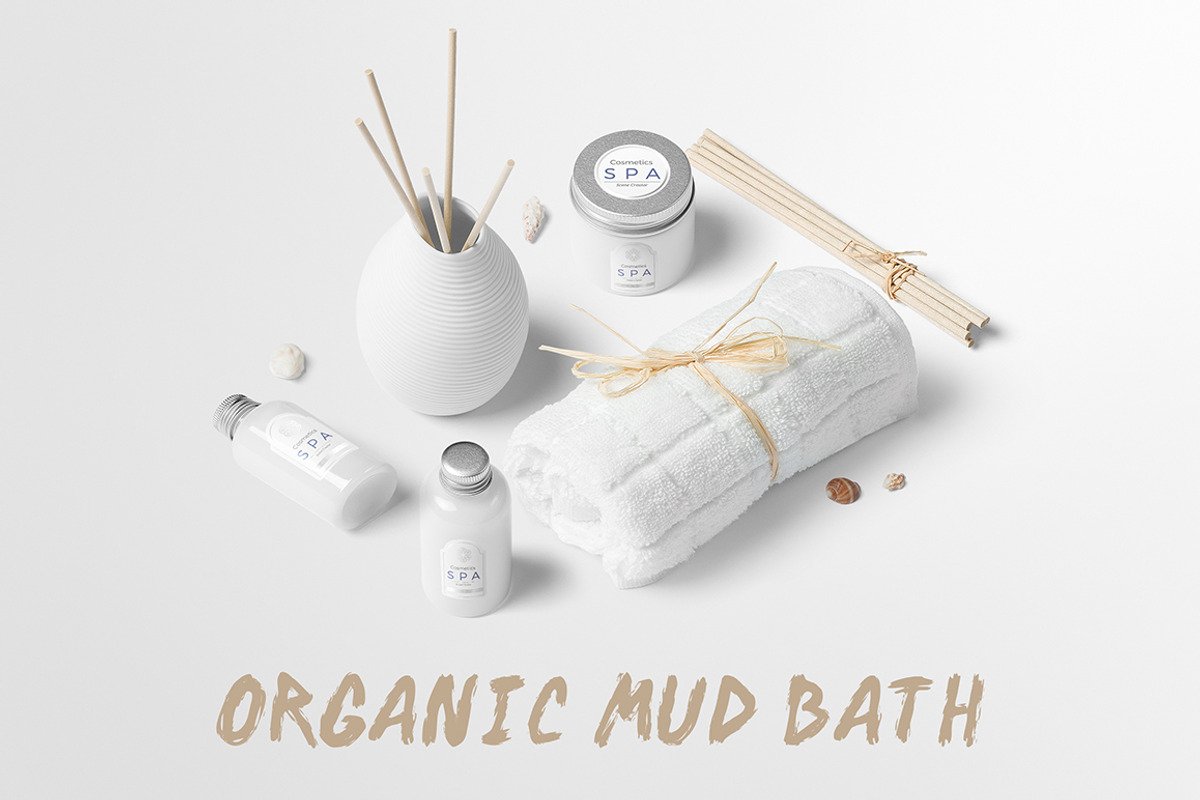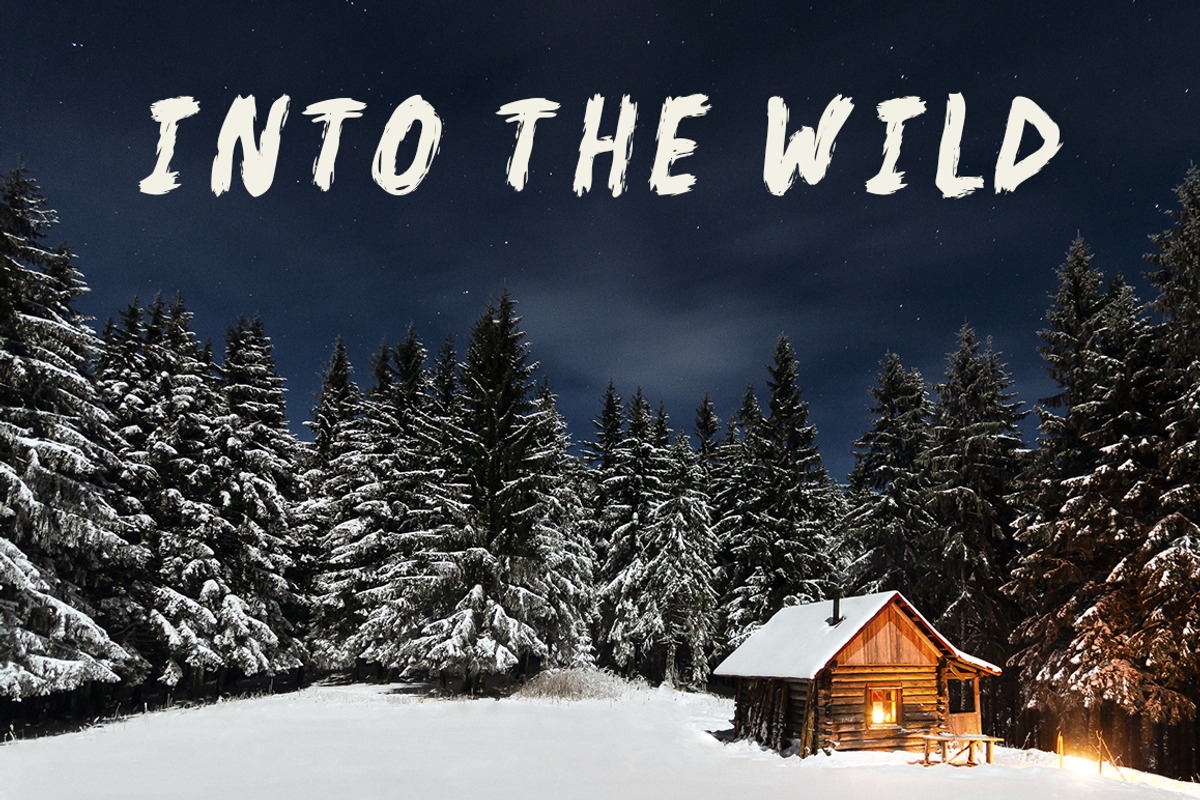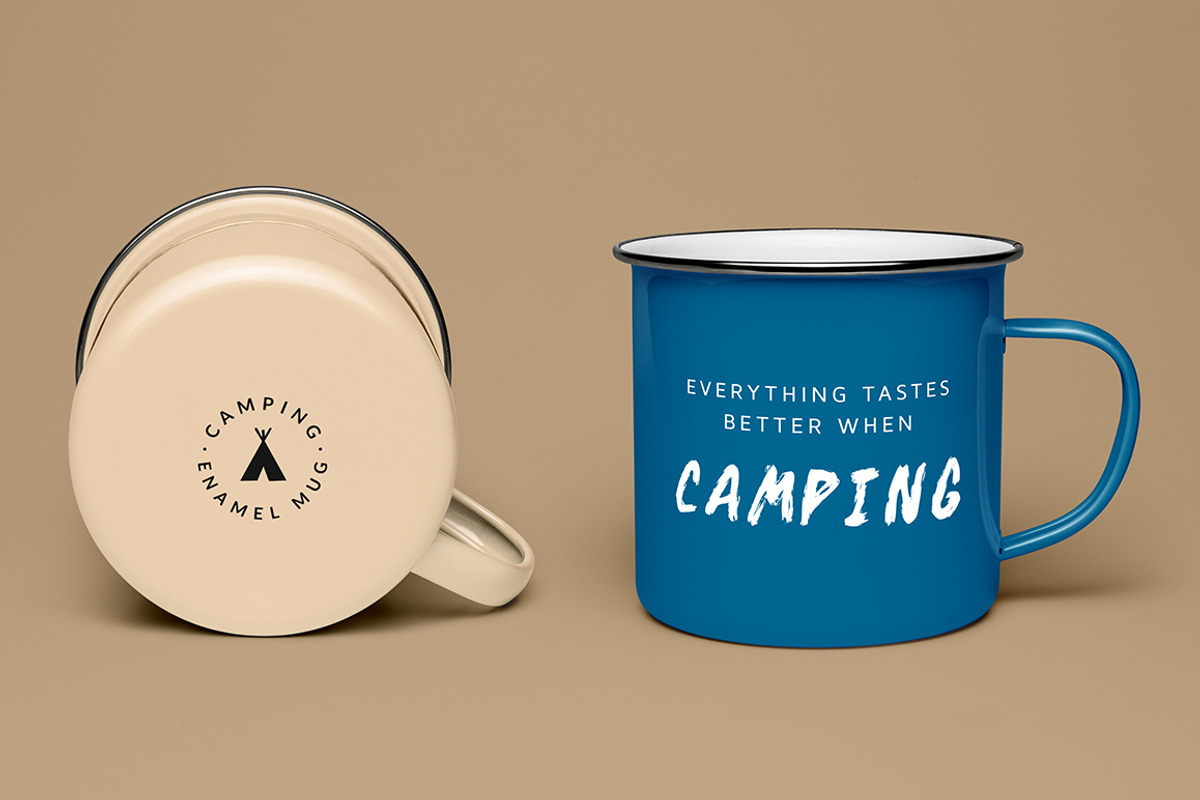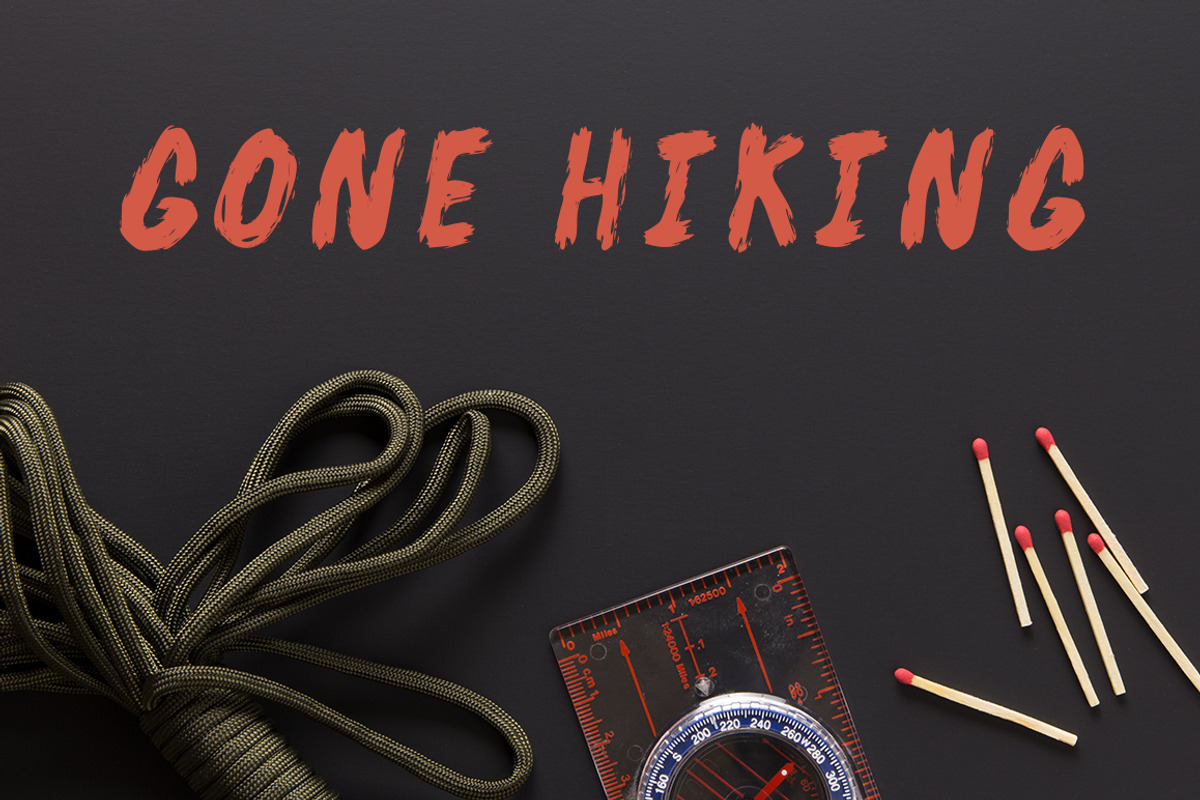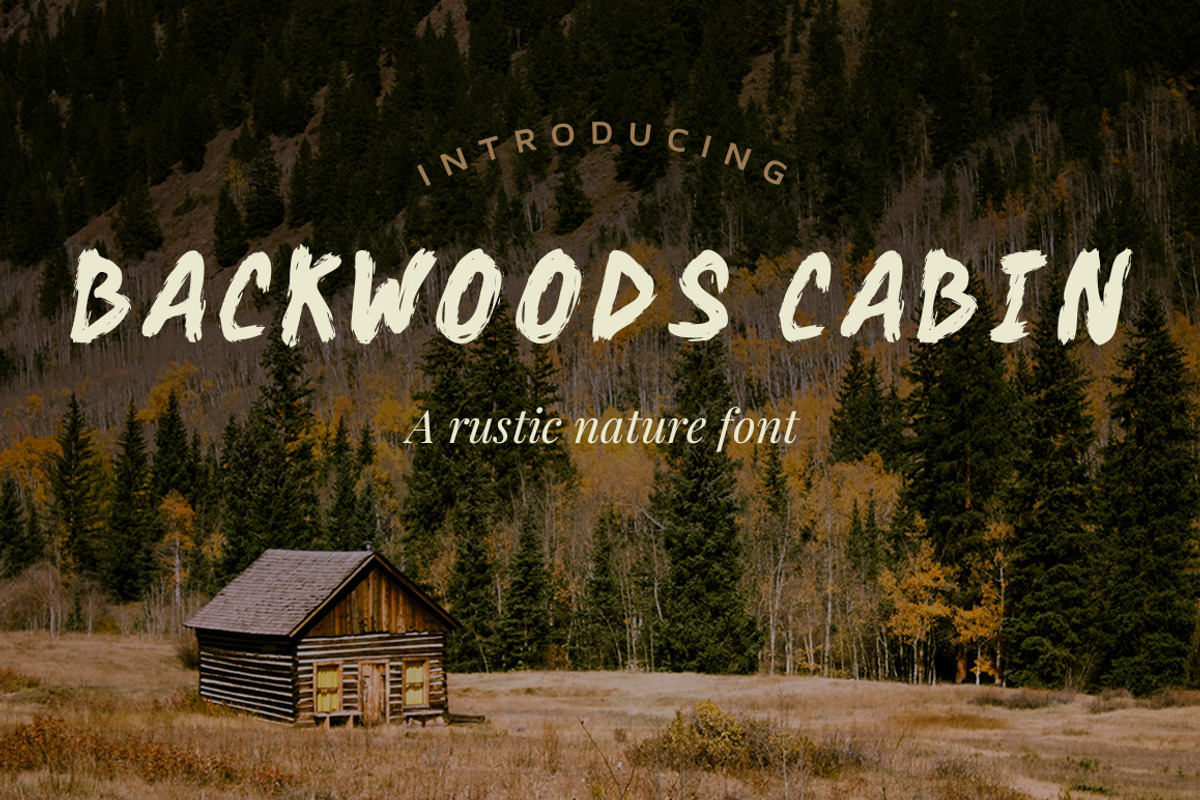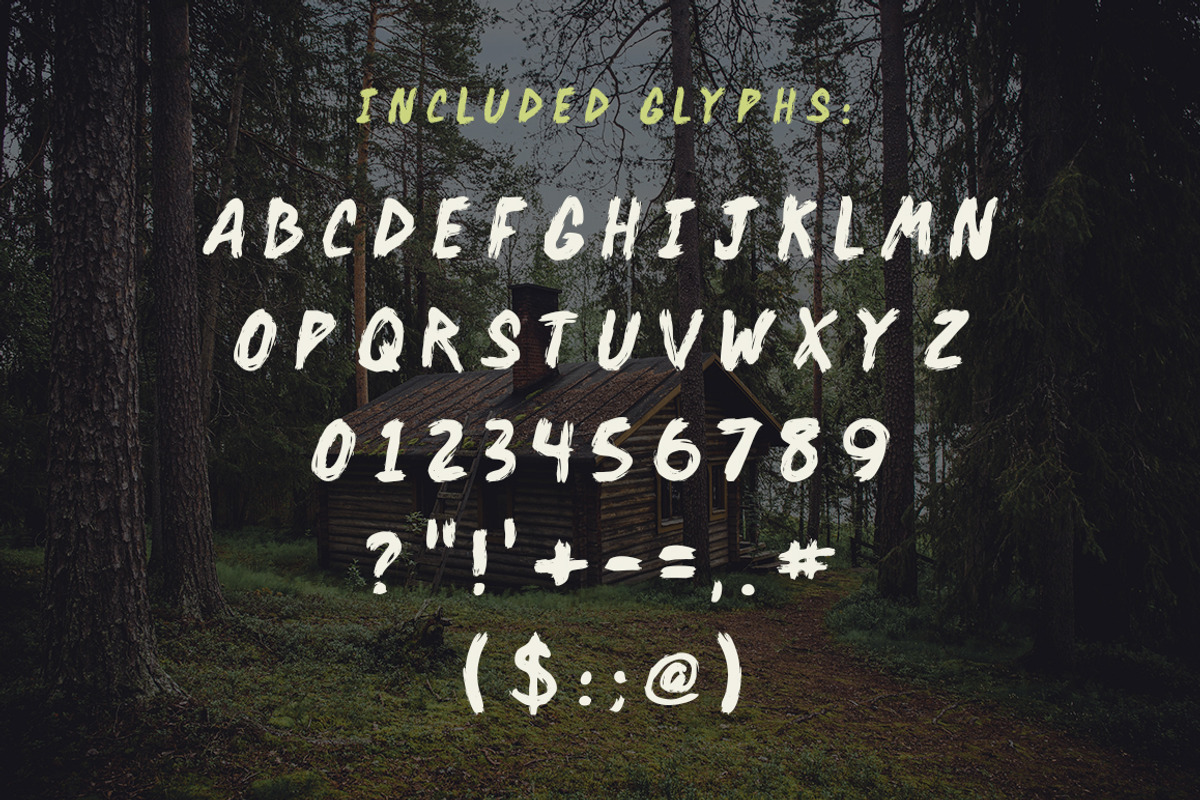
Backwoods Cabin Font
Backwoods Cabin Font by Build Interactive is a font selected for branding, posters, packaging, typography.
Why Backwoods Cabin Font is worth a look
Backwoods Cabin Font by Build Interactive fits naturally into Branding, posters, packaging, typography.